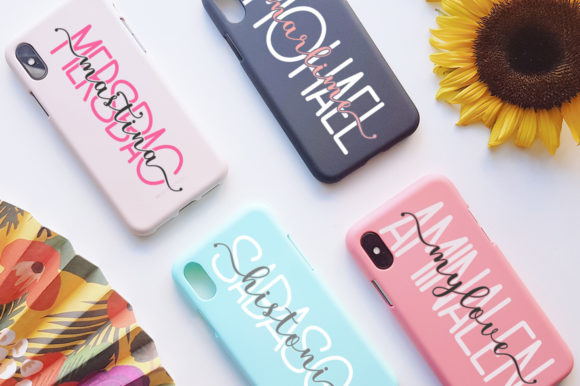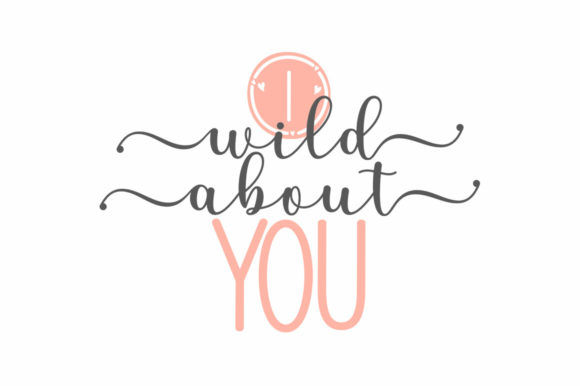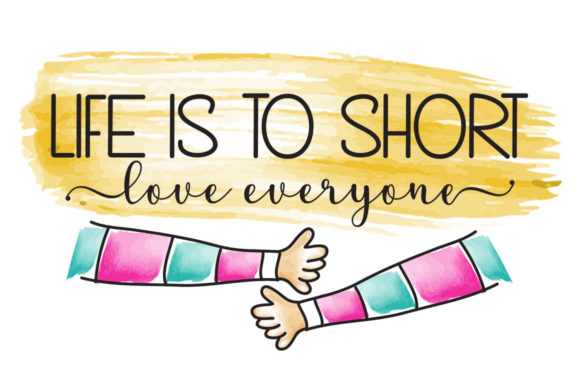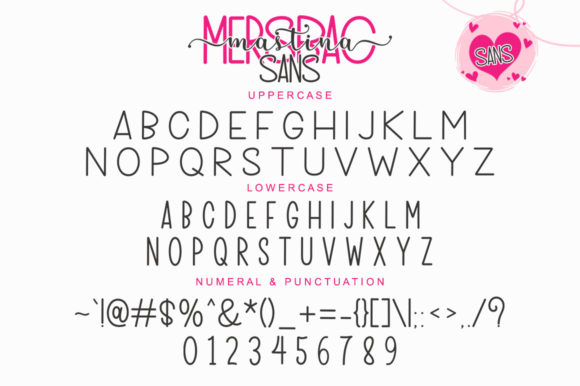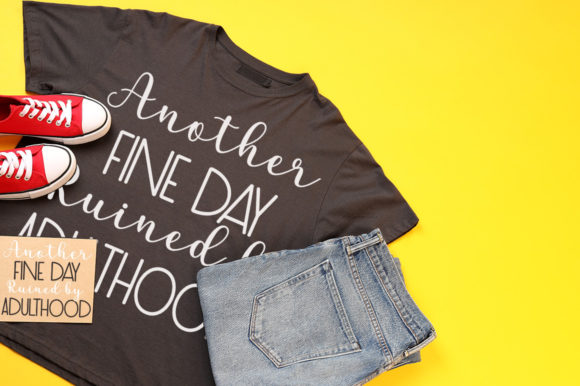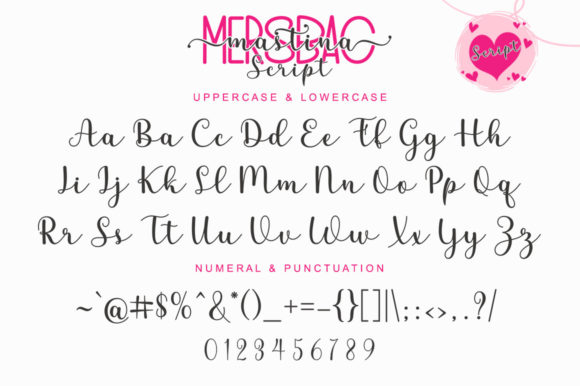
Introduction to Mersbac Mastina Font
Mersbac Mastina consists of two fonts designed to complement each other perfectly.
Together or apart, these fonts are ideal for adding a chic and cheery touch to your crafts This font is PUA encoded which means you can access all glyphs and swashes with ease.
Key Features of Mersbac Mastina Font